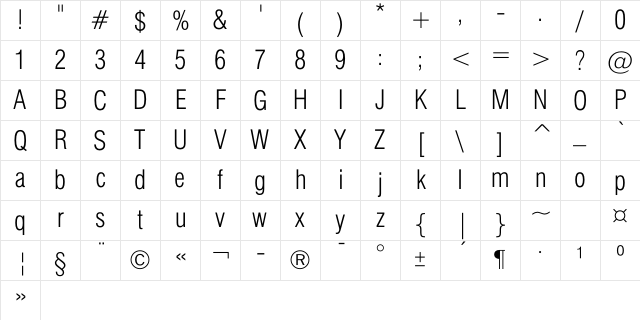
BPG Classic Medium wears its vintage influences proudly, with letterforms that recall mid-century signage, classic packaging, and nostalgia-driven design.
Font Pairing: Combine BPG Classic Medium with a simple slab or neutral sans - period-accurate companions reinforce the vintage feel without competing for attention.
Pro Tip: Lean into BPG Classic Medium's period character by pairing it with aged paper textures, muted colour palettes, and vintage illustration styles.